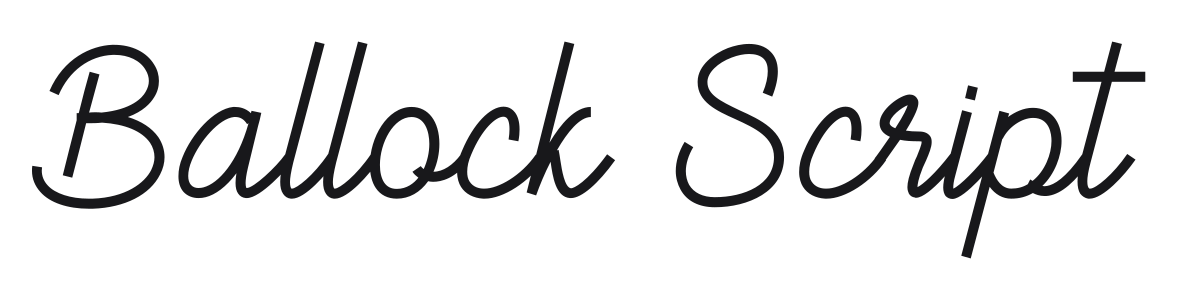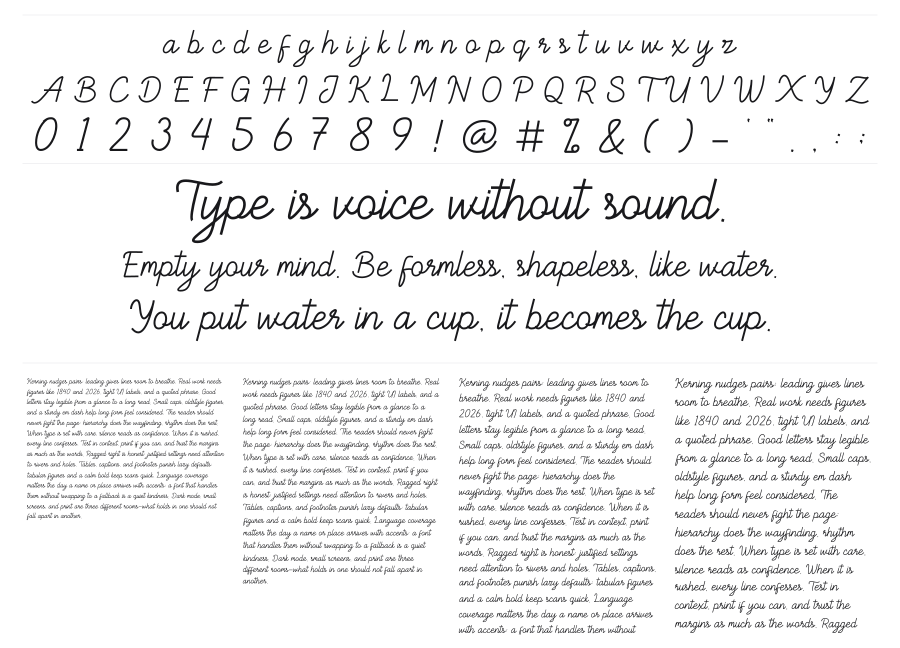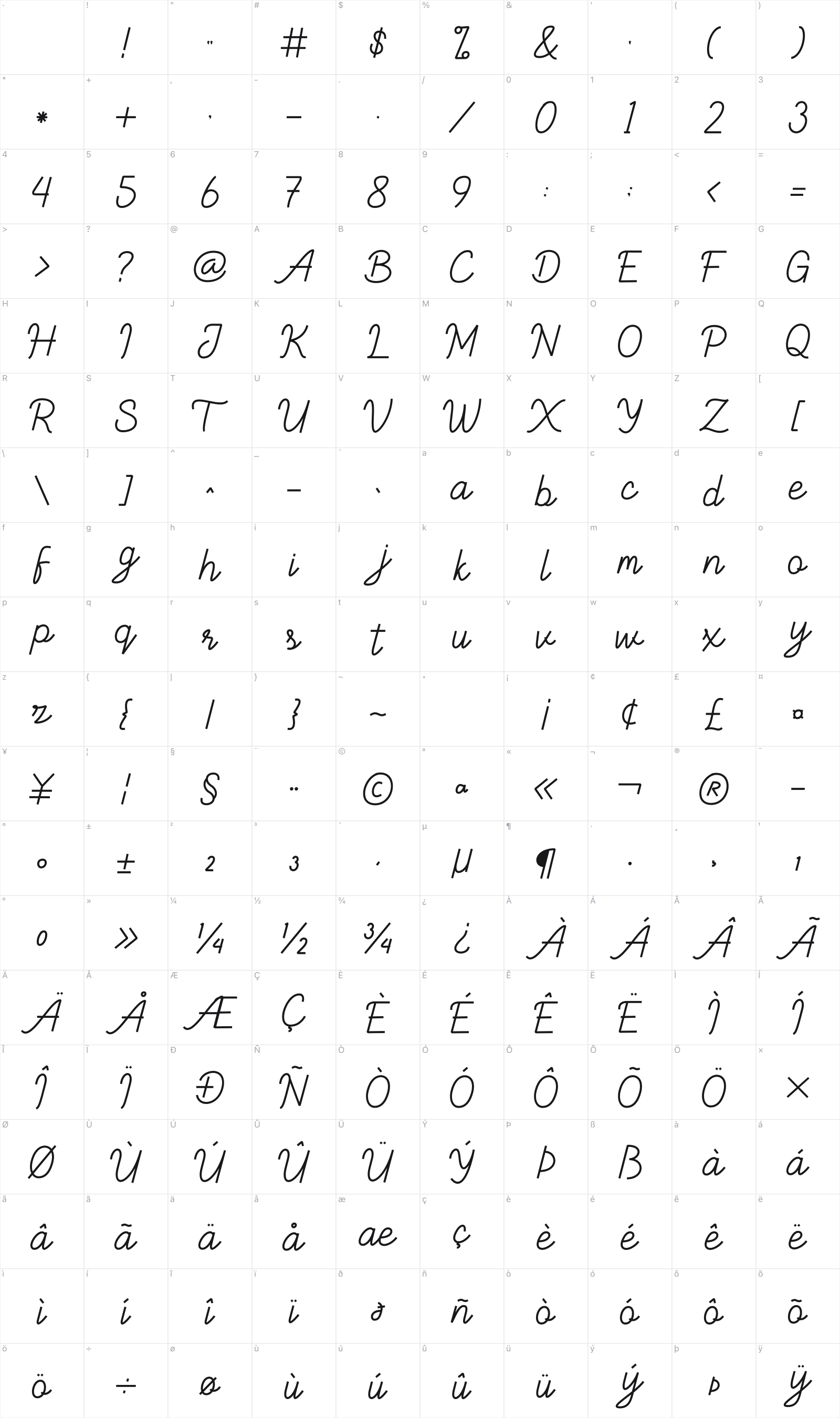
Ballock Script
Ballock Script is a connected casual script with smooth looping strokes and a relaxed, handwritten energy. The near-monoweight construction keeps things light and airy, while the continuous joining strokes give it a confident, practiced feel. It reads best at display sizes for logos, packaging, and branding where a personal touch matters.